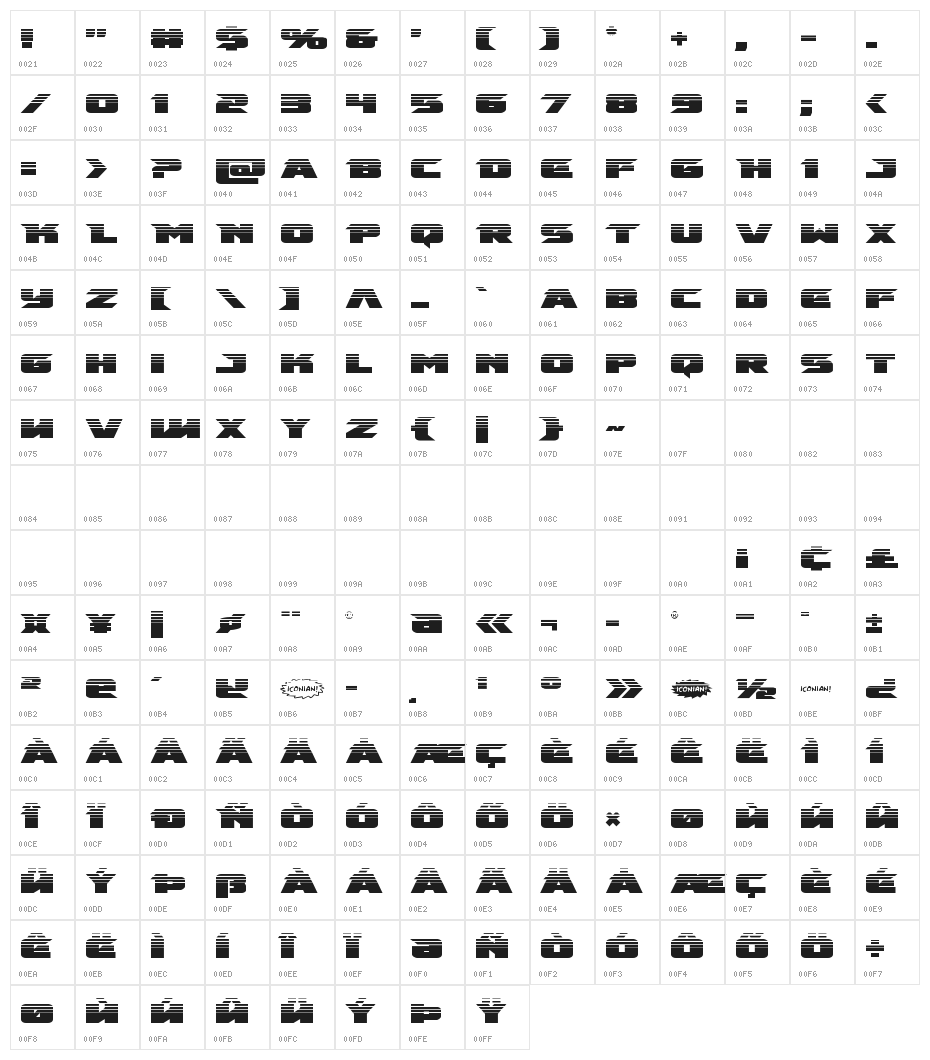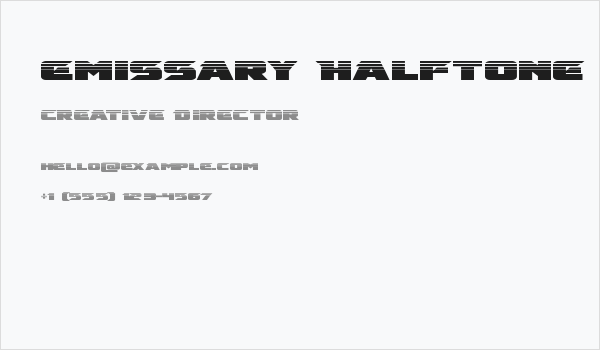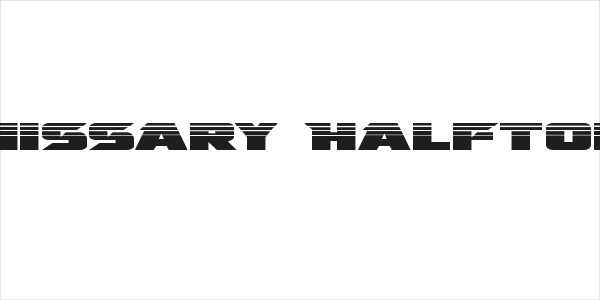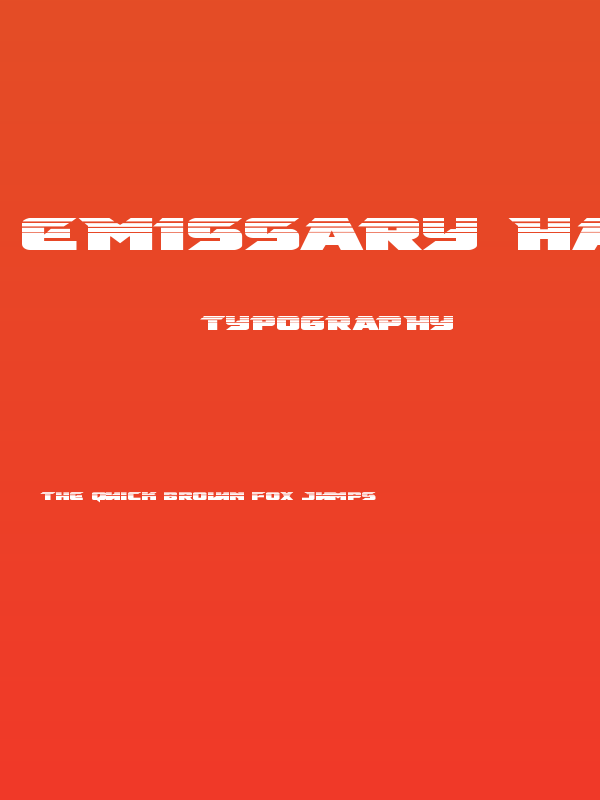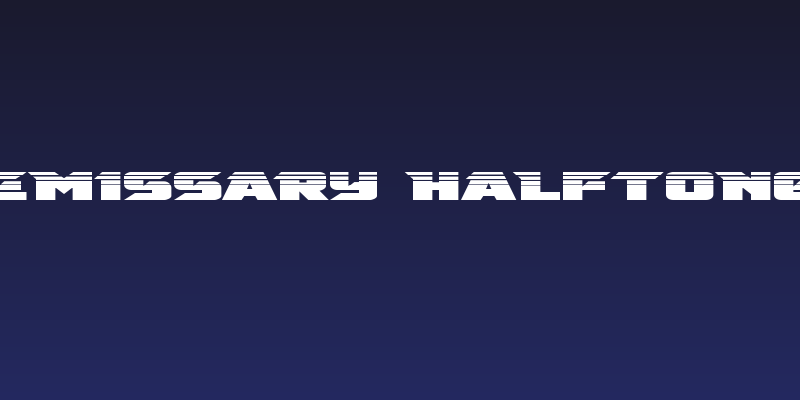
Emissary Halftone Font
Emissary Halftone Description
This font features a bold, futuristic design with a distinctive halftone effect. The characters are constructed with sharp, angular lines and a unique pattern that gives a sense of movement and energy. The uppercase and lowercase letters maintain a consistent style, with a strong geometric influence. The numbers and special characters are equally bold, ensuring a cohesive look across all text elements. This font's striking appearance makes it ideal for projects that require a modern and dynamic aesthetic.
Proposed ProjectsIdeal for sci-fi themed posters, video game titles, and modern branding projects.